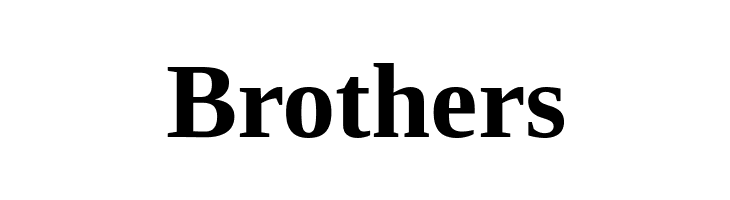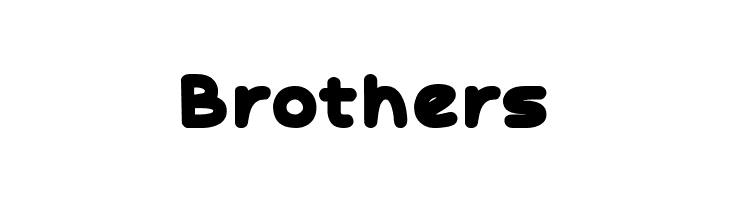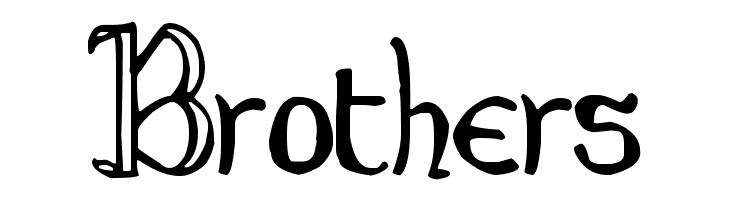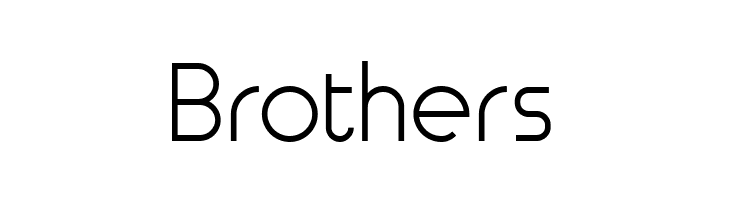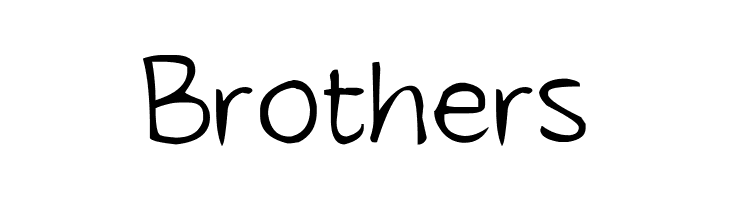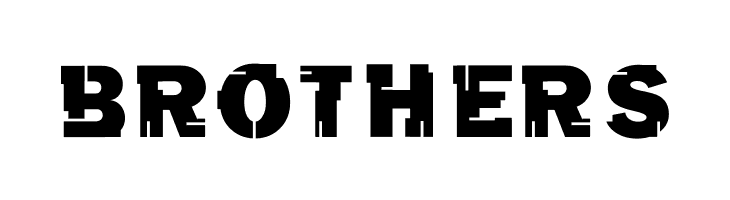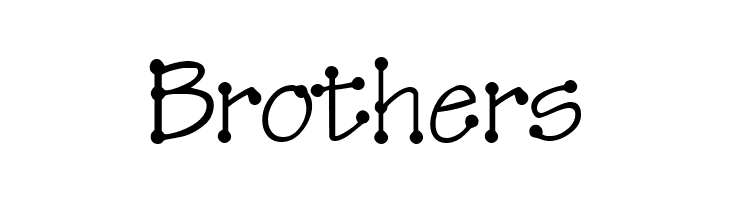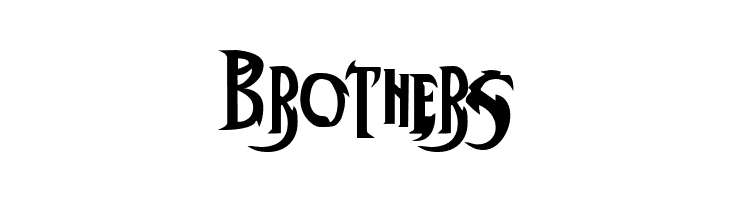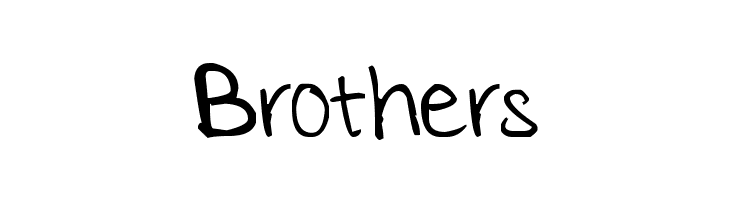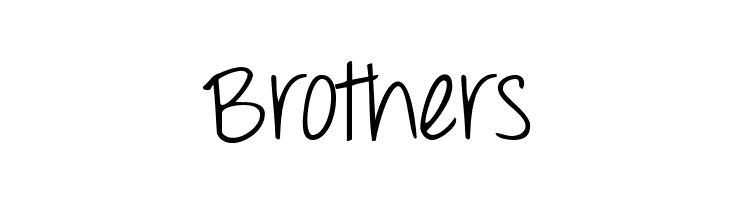
A jagged, edgy font with sharp, angular strokes for a rebellious look.
A bold, spiky, and gothic-inspired font with high contrast and intricate details.
A playful, tentacle-inspired font with bold, dynamic characters.
A bold, three-dimensional font with a playful and dynamic style.
A bold, three-dimensional font with a filled, shadowed design for impactful visuals.
A distressed, grunge-style font with bold, textured characters.
A whimsical and artistic font with exaggerated curves and playful details.
A whimsical, decorative font with a fantasy-like, medieval influence.
An ornate and decorative font with intricate details and a whimsical touch.
An ornate and decorative font with intricate swirls and flourishes.
A playful, casual handwritten font with smooth curves and a personal touch.
A bold, playful handwritten font with rounded, energetic letterforms.
A bold, playful font with rounded outlines and a double-layered border.
A decorative and artistic font with bold, fluid strokes and intricate details.
A digital, segmented font with a futuristic, LED display style.
A digital, segmented font with an italic slant, inspired by LED displays.
A digital, segmented font inspired by classic digital displays.
A digital, segmented font with a futuristic, italicized style.
A playful, casual handwritten font with smooth, flowing lines.
A playful, balloon-like font with tiger stripe patterns.
A bold, playful font with a tiger-striped pattern, perfect for whimsical designs.
A playful, bold font with characters enclosed in hand-drawn boxes.
A jagged, hand-drawn font with a raw and dynamic style.
A modern, geometric font with uniform width and balanced characters.
A modern, rounded sans-serif font with consistent stroke width and balanced character spacing.
A modern, geometric font with rounded edges and balanced character spacing.
A bold serif font with high contrast and sharp serifs, blending traditional and modern styles.